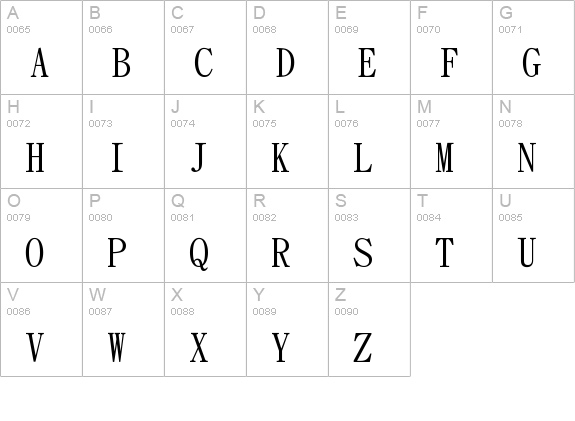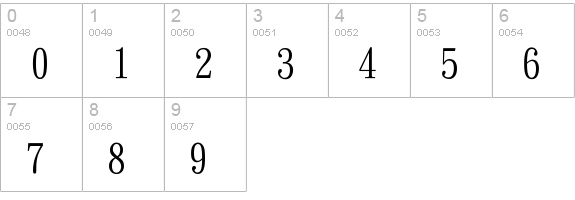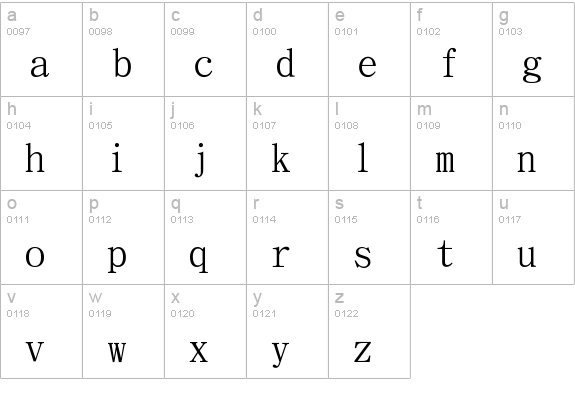
µØ±d°É«F¬y Font Details
Introducing µØ±d°É«F¬y font, a stunning and versatile typeface that will bring an extra touch of elegance and sophistication to your designs. With its unique and intricate letterforms, this font is perfect for adding a sense of creativity and originality to any project. Whether you're working on a logo, website, poster, or any other design, µØ±d°É«F¬y font will effortlessly elevate your work to the next level. One of the best features of µØ±d°É«F¬y font is that it is freely available to download at FontsMarket.com. This means that you can easily access this incredible font without any cost, making it an ideal choice for both personal and commercial projects. With just a few clicks, you can enhance your designs with this gorgeous typeface and make them truly stand out. The versatility of µØ±d°É«F¬y font is truly remarkable. It offers a wide range of characters, including uppercase letters, lowercase letters, numbers, symbols, and punctuation marks. This extensive character set allows you to create eye-catching headlines, captivating paragraphs, and everything in between. The possibilities are endless with µØ±d°É«F¬y font. Not only does µØ±d°É«F¬y font possess a captivating aesthetic, but it also boasts exceptional legibility. Each letter is meticulously crafted to ensure clarity, making it easy for your audience to read and comprehend your message. Whether your design requires a bold and impactful statement or a subtle and refined touch, µØ±d°É«F¬y font delivers on all fronts. Don't miss the opportunity to enhance your designs with µØ±d°É«F¬y font. Download it for free at FontsMarket.com and unlock a world of creative possibilities. Let this font be the driving force behind your next design project, and watch as it elevates your work to new heights.